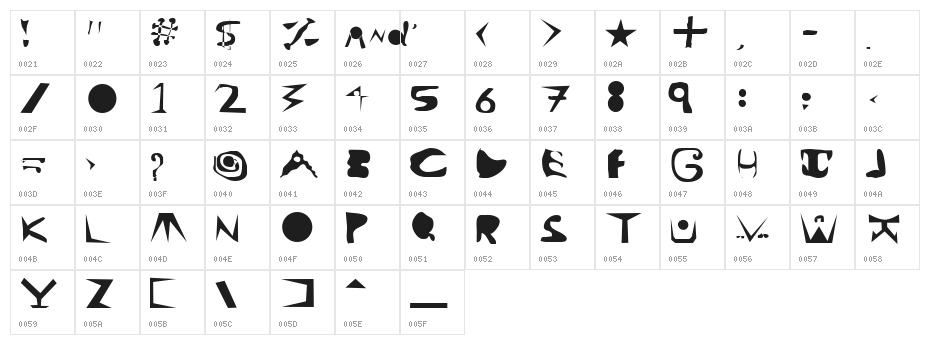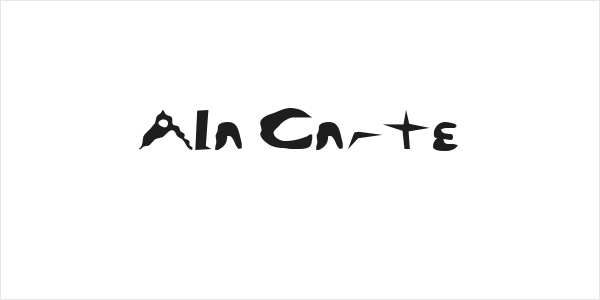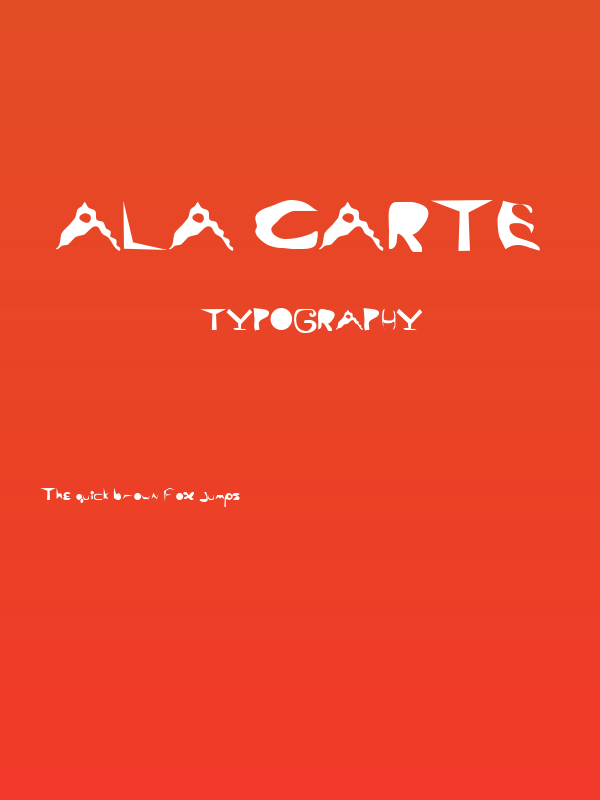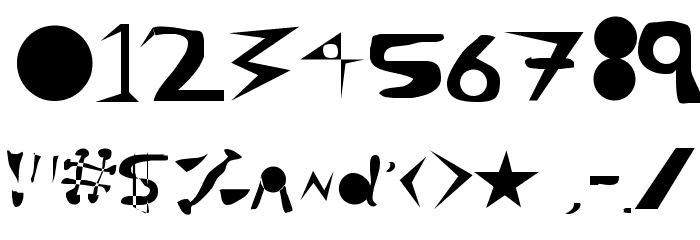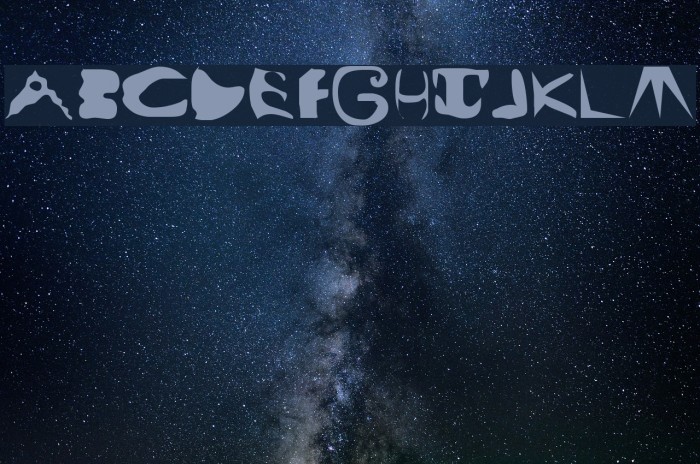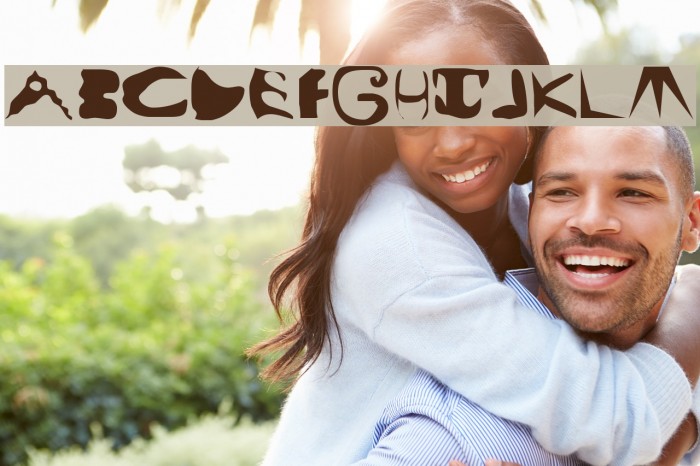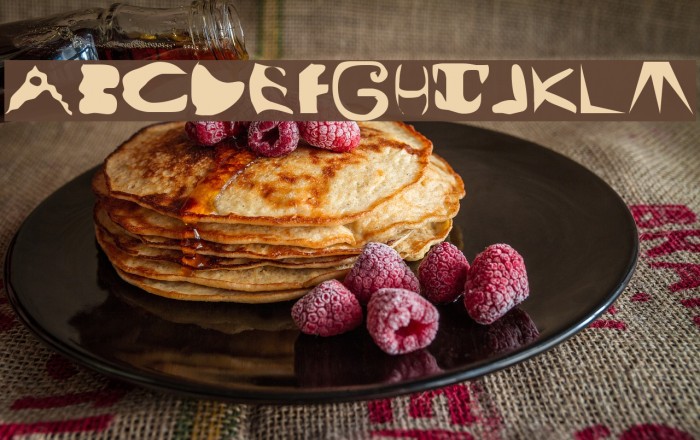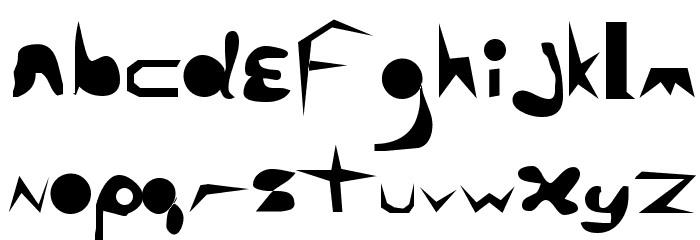
Ala Carte Font
Ala Carte Description
This font is a highly decorative and artistic typeface, characterized by its bold and abstract shapes. Each character is uniquely designed with a mix of sharp angles and smooth curves, creating a dynamic and visually striking appearance. The uppercase letters are particularly bold, with some featuring intricate cutouts and geometric patterns. The lowercase letters maintain a similar style but with a slightly more subdued design. Numbers and special characters follow the same artistic theme, making this font ideal for creative and unconventional projects. Its unique style makes it stand out, ensuring that any text set in this font will capture attention.
| Proposed Projects | Ideal for album covers, posters, branding for creative industries, and any project requiring a bold, artistic touch. |